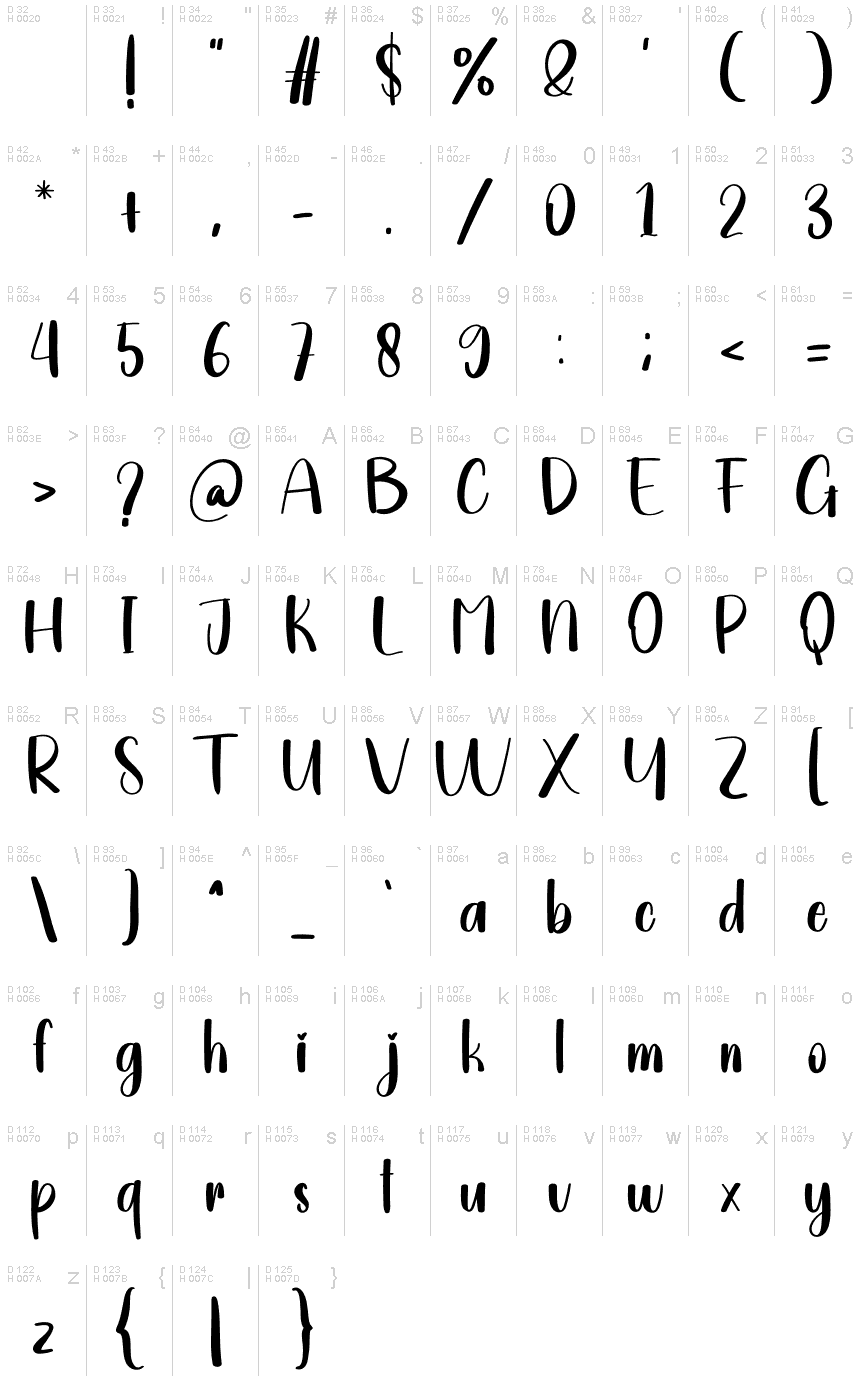
Water
Water, designed by Scratchones, is a handwritten font that exudes an effortless elegance with its flowing curves and natural variability. It captures the essence of personal touch and authenticity, making it a delightful choice for projects seeking to convey warmth and individuality. The whimsical charm of Water is ideal for invitations, branding, or any creative endeavor that benefits from a touch of human flair. Its aesthetic appeal lies in the balance between readability and artistic expression.
This font's style bridges the gap between formal typography and the expressive freedom found in personal penmanship, offering designers a versatile tool to add character to their work.